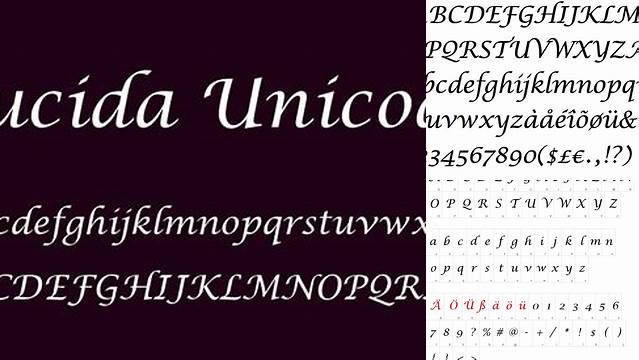
Hey everyone! Are you looking for a font that adds a touch of elegance and sophistication to your projects? Look no further than Lucida Calligraphy STD Regular. This beautiful font, known for its graceful curves and classic appeal, is a fantastic choice for various design needs. And the best part? You can often find it available as a free font! Let's dive into everything you need to know about Lucida Calligraphy STD Regular, from where to download it to how to best use it in your designs. Get ready to elevate your work with this timeless font.
1. What is Lucida Calligraphy STD Regular? Unveiling the Font's Essence
So, what exactly is Lucida Calligraphy STD Regular? This font is a member of the Lucida family, known for its clarity and readability, but it leans into the realm of calligraphy, offering a more artistic and flowing aesthetic. Its design is inspired by traditional handwriting styles, making it perfect for projects where you want to convey a sense of sophistication, artistry, or personal touch. The “STD” in the name refers to a specific version or variant of the font, and “Regular” indicates the standard weight. This means you're getting the base, non-bold version, ideal for a wide range of applications. When you see Lucida Calligraphy STD Regular, think of elegant invitations, beautiful headings, or any design where you want to add a touch of class. It's not just a font; it's a statement! The curves of the characters, the way the letters connect, and the overall flow all contribute to its unique and captivating personality. It’s designed to be both visually appealing and functional. It’s a delicate dance between readability and artistic flair. This particular font has become a popular choice for designers seeking a balance between formality and accessibility. If you're looking to create designs that resonate with a sense of quality and refinement, then Lucida Calligraphy STD Regular is a great place to start. Think about its potential to transform your work, whether it is in digital or print. It offers a level of charm and character that can make your text stand out and leave a lasting impression on the reader. Consider how this font can become a valuable asset in your design arsenal, bringing a touch of sophistication to any project. This font is a timeless classic, and it continues to capture the hearts of creatives. It is a testament to the enduring appeal of beautiful typography, a font that’s built to impress.
4. Ideal Uses for Lucida Calligraphy STD Regular in Your Design Projects
Lucida Calligraphy STD Regular is a versatile font, perfect for a variety of design projects where you want to add an element of elegance and sophistication. The flowing, handwritten style makes it ideal for certain applications. Consider using it for wedding invitations, greeting cards, and any other stationery. It's an excellent choice for creating elegant and personalized designs. It can also be used to create beautiful logos and branding materials, especially for businesses that aim for a touch of luxury or a classic feel. Think about using it for headlines and titles in your designs. It can make a big impact in grabbing attention. Be mindful of readability when using it for large blocks of text. While it's a beautiful font, it may not be the best choice for extensive body text. Consider it for short quotes or captions that need to stand out. It’s great for adding a personal touch to your website or social media graphics. You can use it to create eye-catching graphics that are sure to attract attention. It pairs well with other fonts. Consider pairing it with a simple, sans-serif font for body text. This combination will create a balanced and visually appealing design. Experiment with different color schemes and backgrounds to see how Lucida Calligraphy STD Regular performs best in different settings. You’ll find that this font is a powerful tool for conveying a sense of elegance and sophistication, allowing your projects to stand out and leave a memorable impression.
5. Font Pairing: Complementing Lucida Calligraphy STD Regular for Stunning Results
One of the keys to great design is to choose the right fonts and make sure they complement each other. If you're using Lucida Calligraphy STD Regular, selecting the right font pairings can elevate your projects. When pairing Lucida Calligraphy STD Regular, it's generally recommended to combine it with a simpler, cleaner font. The contrast between the ornate calligraphic style and a more basic font can create a visually appealing and balanced design. Consider pairing it with a sans-serif font for body text. Fonts like Arial, Helvetica, or Open Sans are great choices because they provide a clean, modern look that complements the elegance of Lucida Calligraphy STD Regular. The combination creates a perfect balance between sophistication and readability. For headings, you can use Lucida Calligraphy STD Regular to create a sense of elegance and use the sans-serif font for the body text. Another option is to pair it with a serif font that has a more classic feel. Fonts like Times New Roman or Georgia can work well. This combination evokes a traditional and refined aesthetic, ideal for projects like formal invitations or classic branding. Avoid pairing it with overly decorative or complex fonts. This can create a visual clutter that makes the design hard to read. Remember to think about the overall tone and message of your design. The font pairings should align with the intended feeling. Experiment with different weights and styles of fonts to see which ones work best. Mixing font weights can create visual interest and enhance the overall design. Always ensure readability. If the font pairing makes the text hard to read, it's time to reconsider your choices. Proper font pairing is essential for creating effective and engaging designs.
8. Enhancing Readability: Tips for Using Lucida Calligraphy Effectively
While Lucida Calligraphy STD Regular is visually appealing, it's essential to use it in a way that ensures readability. Here are some tips to help you use the font effectively. Be mindful of the size. Due to the detailed nature of the font, it may not be suitable for very small text sizes. It is better used for larger text, such as headings or titles. Use it for headlines and titles rather than large blocks of text. The font's design can make it less readable for longer passages. This will help you to maintain readability. When using Lucida Calligraphy STD Regular, ensure that the contrast between the font and the background is strong. This will make the text easier to read. Use a light font on a dark background or a dark font on a light background. When it comes to letter spacing and line spacing, pay attention to the kerning of the font. Make sure there is enough space between the letters. Adjusting the line spacing is important too. The lines should be spaced far enough apart so the text is easy to follow. Consider using this font for shorter phrases or single words to maximize its impact and maintain readability. Avoid using it for complex content. If you are using it for a logo or design, make sure the text is easy to understand. Choose a font that is easy to read. When using the font, be creative and experiment with different styles and effects. By paying attention to these details, you can ensure that your use of Lucida Calligraphy STD Regular enhances your message.
Lucida Calligraphy STD Regular can improve the user experience. A well-designed website makes a positive impression. The choice of font plays a role. Using this font effectively enhances the user experience.
30. The Enduring Legacy of Lucida Calligraphy: Why it Remains Popular
Lucida Calligraphy STD Regular remains popular for good reasons. It is a timeless font. It is a versatile font. The font is well-suited for various design applications. These qualities make the font a great choice. The font is a design classic.